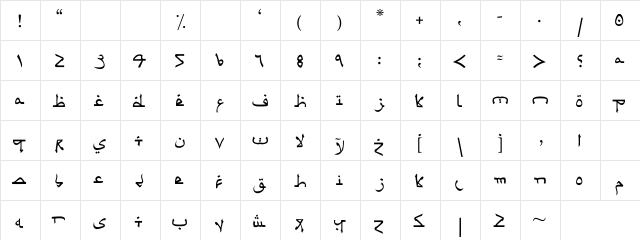
Psuedo Saudi Regular
Design Context for Psuedo Saudi Typeface
Psuedo Saudi offers clean, dependable letterforms without strong stylistic allegiance, making it a practical choice for designers who need flexibility.